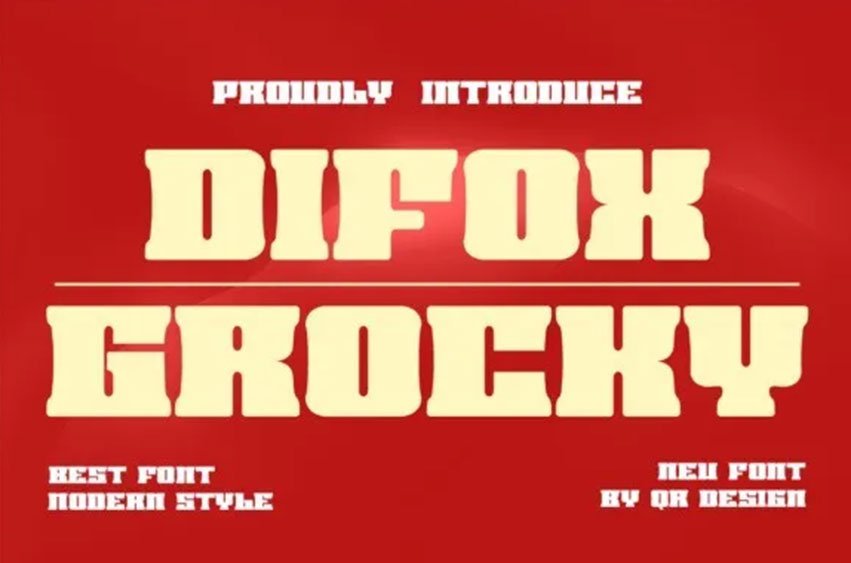
Difox Grocky Font is a bold and authentic display font suitable for any branding project such as logos, T-shirt printing, sports, and many more. Outstanding in a wide range of contexts, use it now and make your work extraordinary!